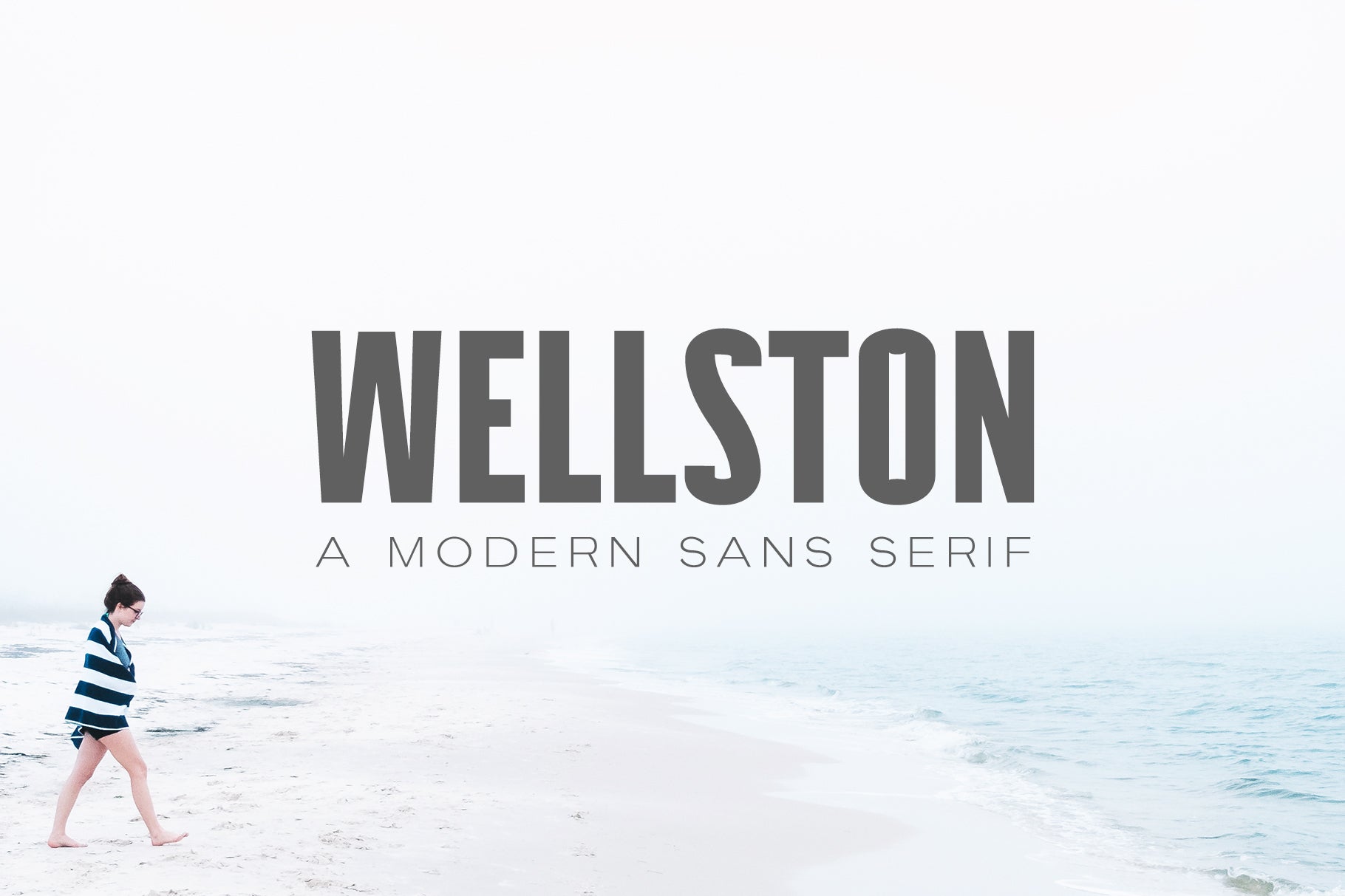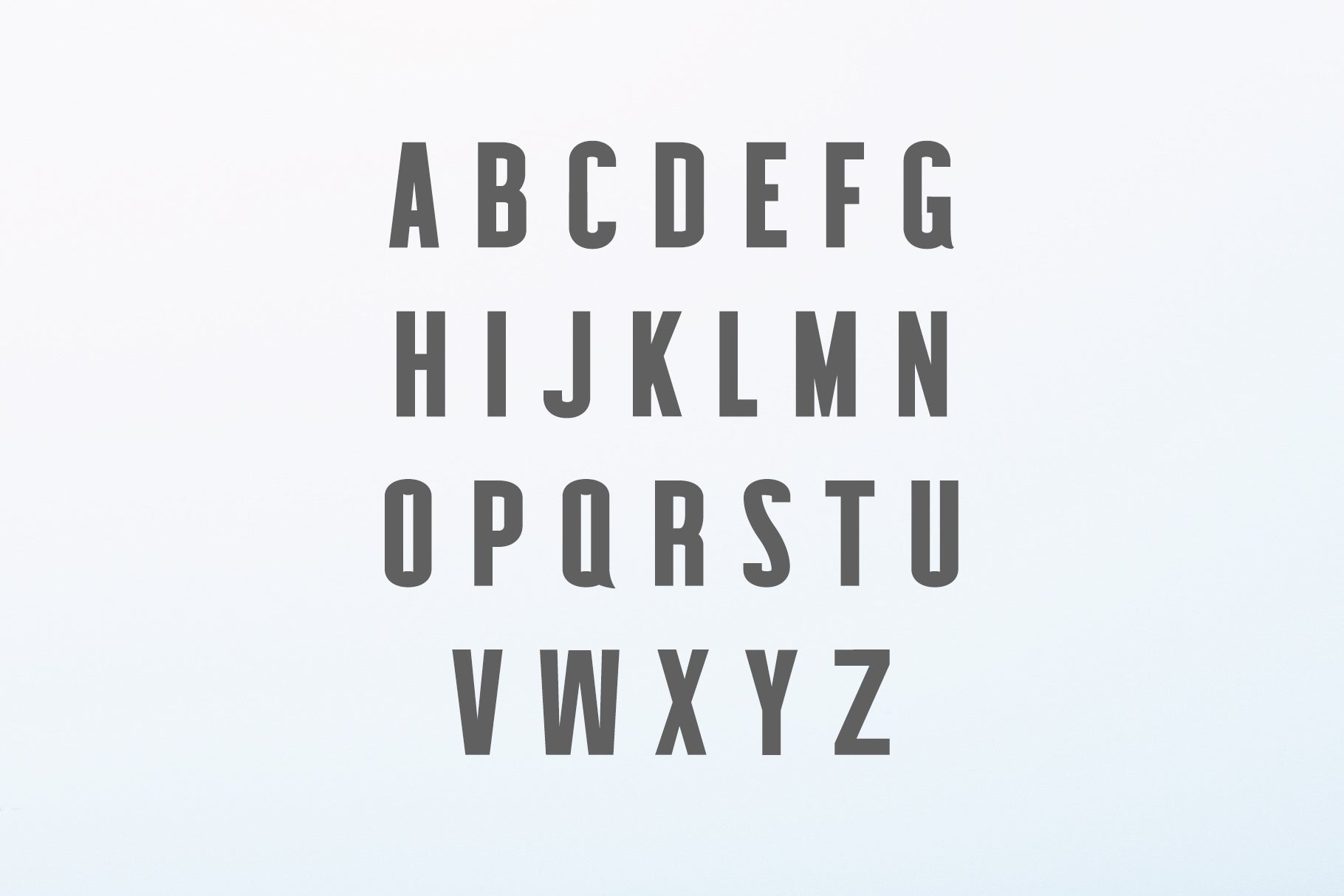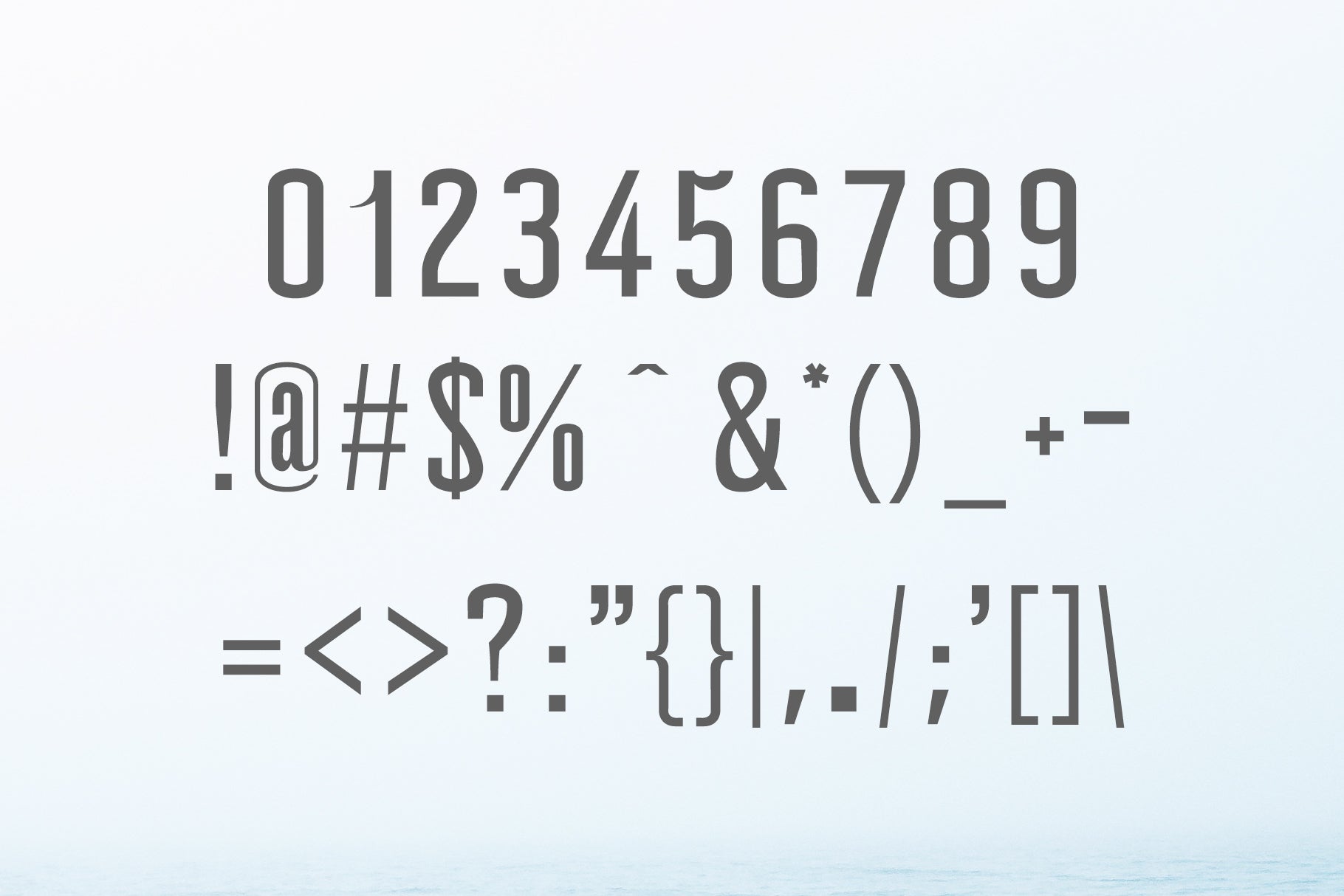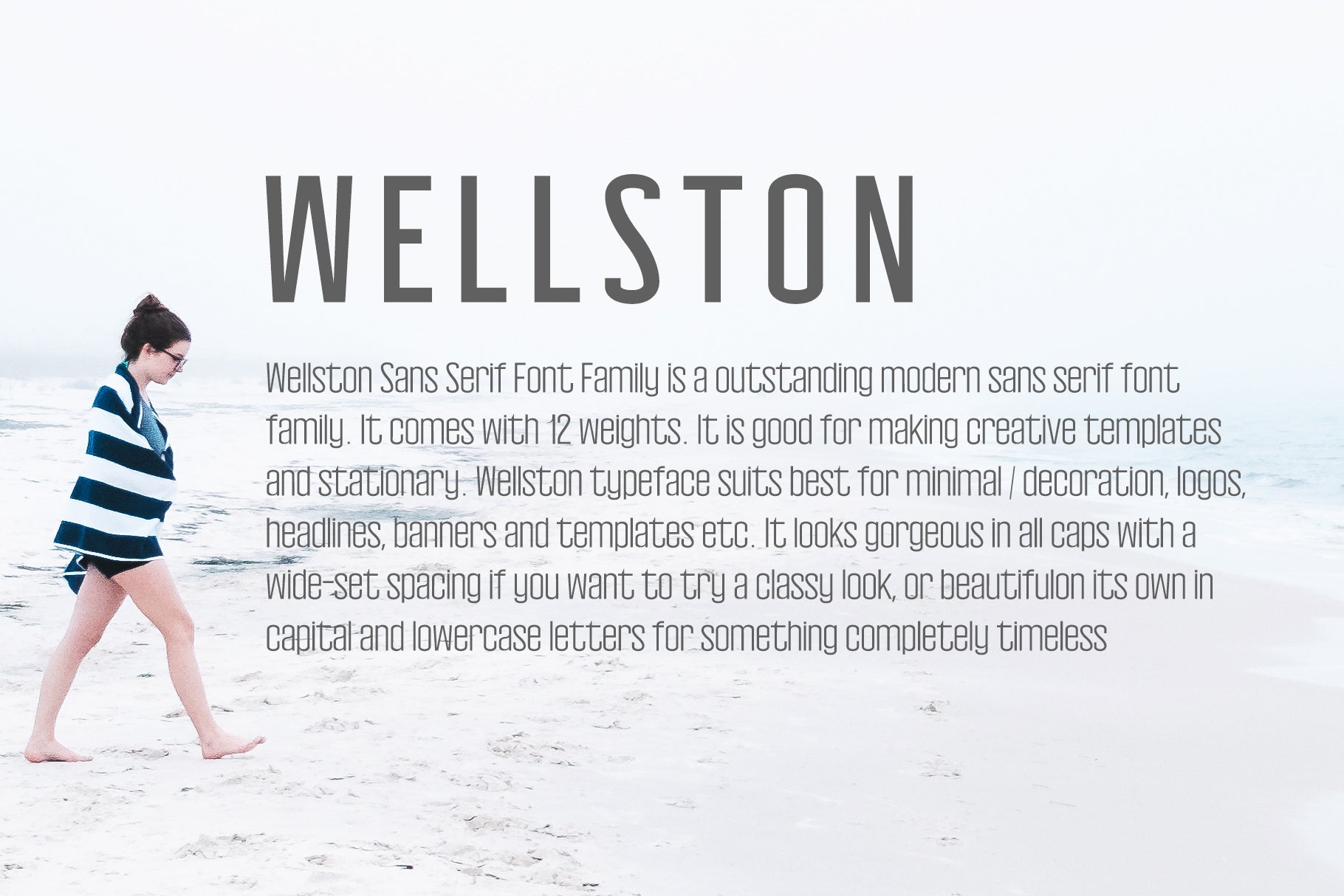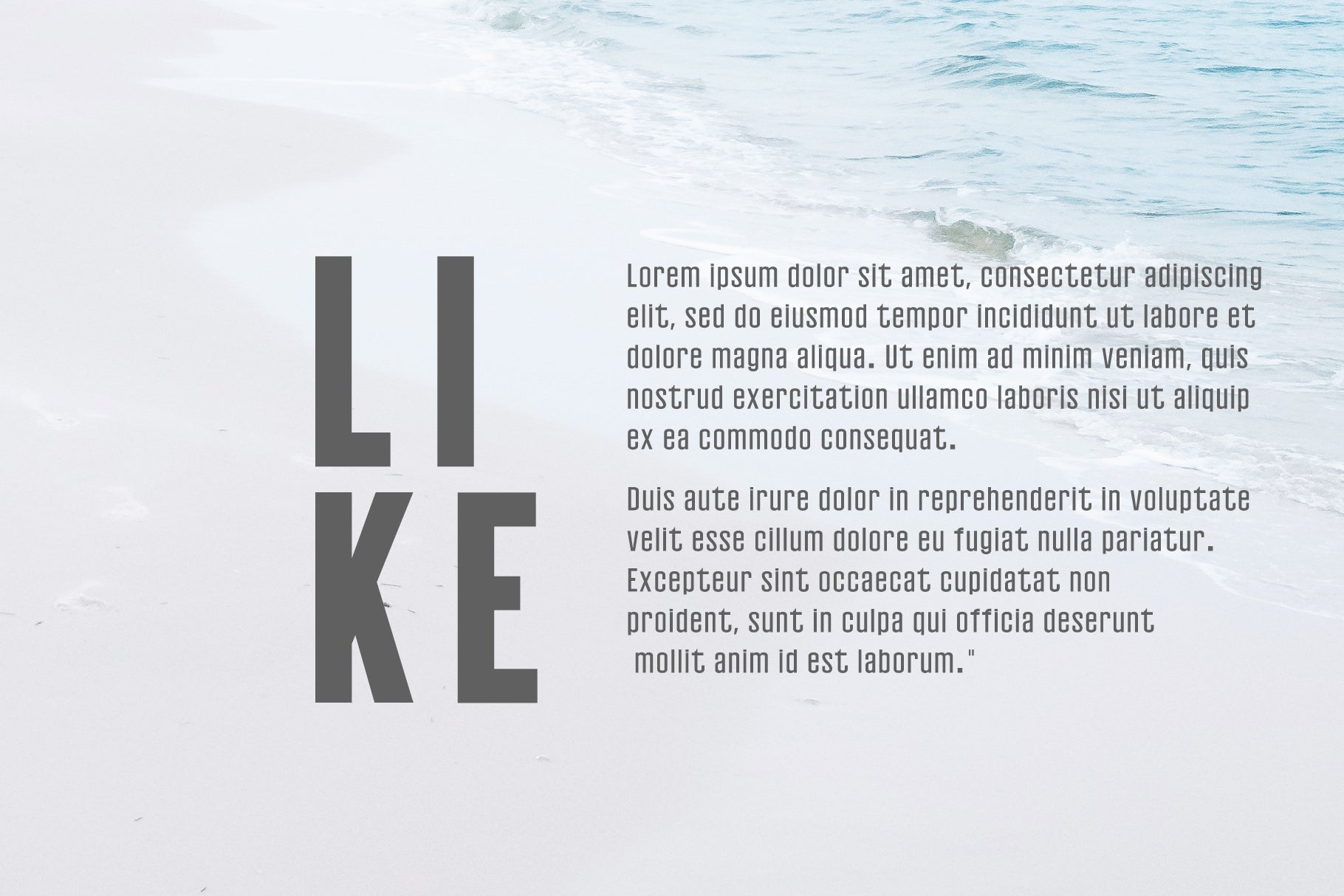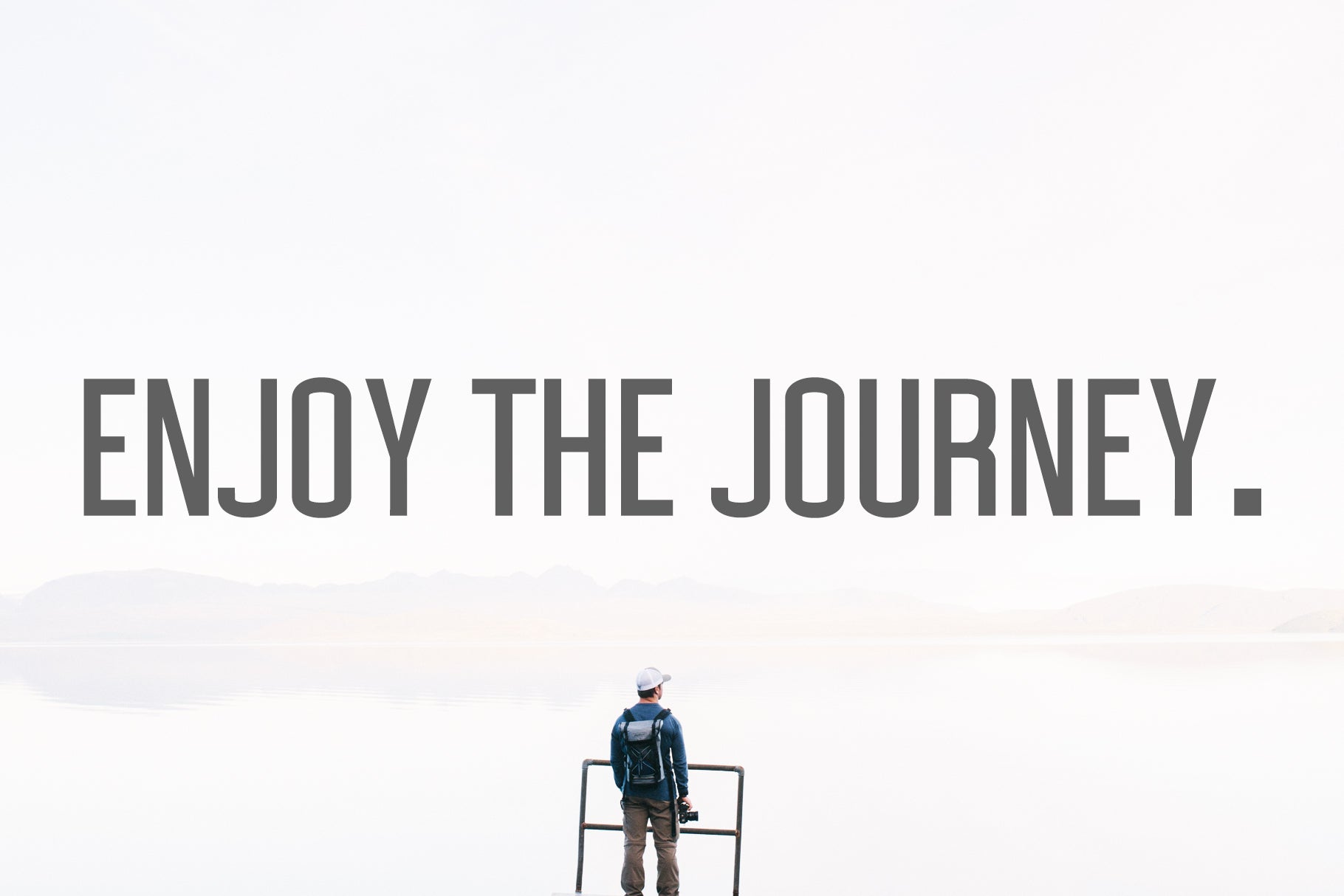
Wellston is a strong and charming modern sans serif font. It comes with 12 beautiful weights. It looks gorgeous in all caps with a wide-set spacing if you want to try a classy look, or beautiful on its own in capital and lowercase letters for something completely timeless.
Included Features:
Font Weight: Regular, Regular Italic, Light, Light Italic, Outline, Outline Italic, Medium, Medium Italic, Smooth, Smooth Italic, Thin, Thin Italic
Wellston Font Features:
Uppercase Letters
Lowercase Letters
Numbers & Punctuation
Non English Characters (Latin Supplement + Latin Extended A)